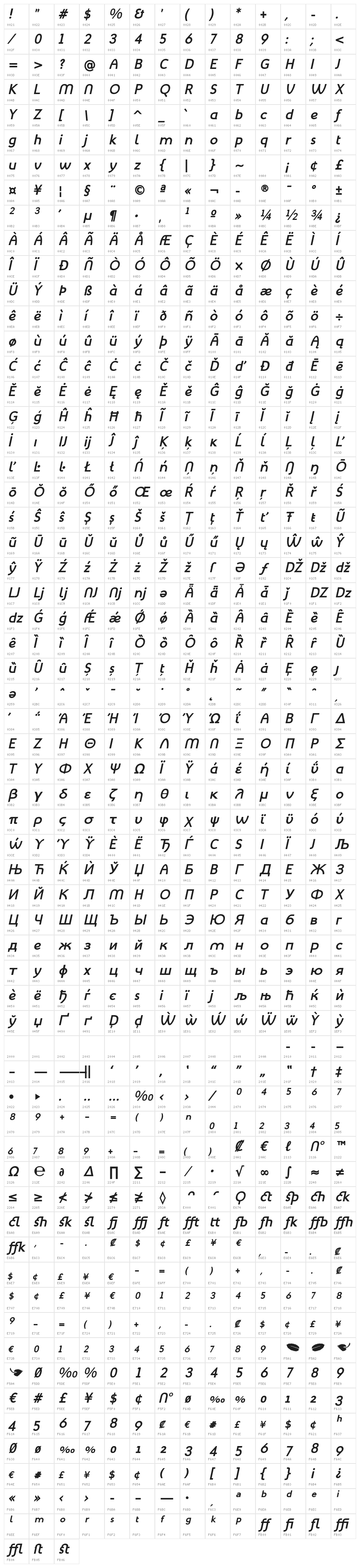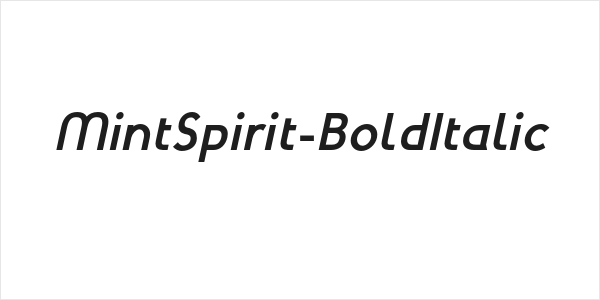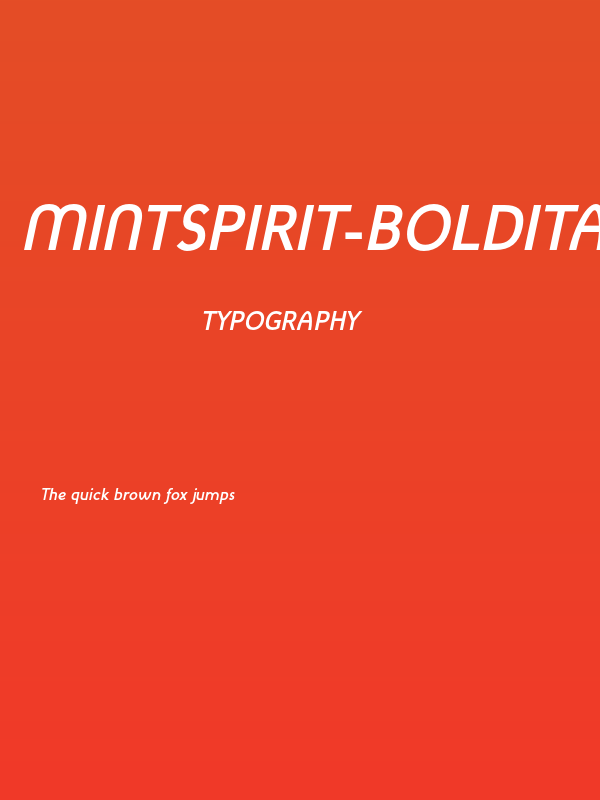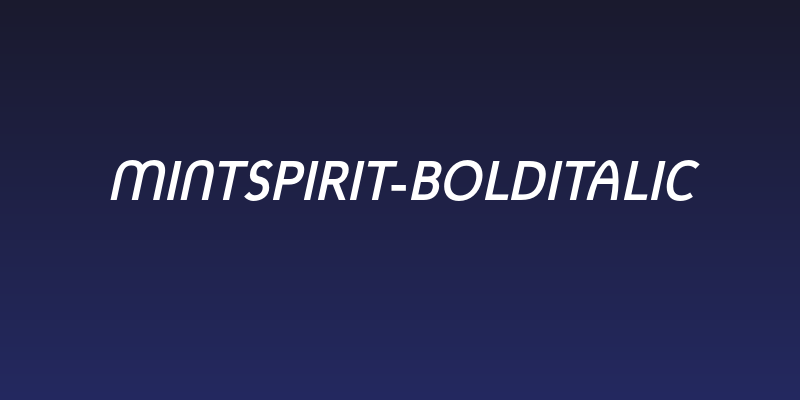
MintSpirit-BoldItalic Font
MintSpirit-BoldItalic Description
This font features a modern and sleek design with a bold and italicized style. The characters are slightly slanted, giving a dynamic and energetic feel. The strokes are consistent in weight, providing a uniform appearance across all characters. The font maintains a clean and legible look, making it suitable for various applications. The numerals and special characters are well-integrated, matching the overall aesthetic of the alphabet. The font's design is versatile, allowing it to be used in both digital and print media.